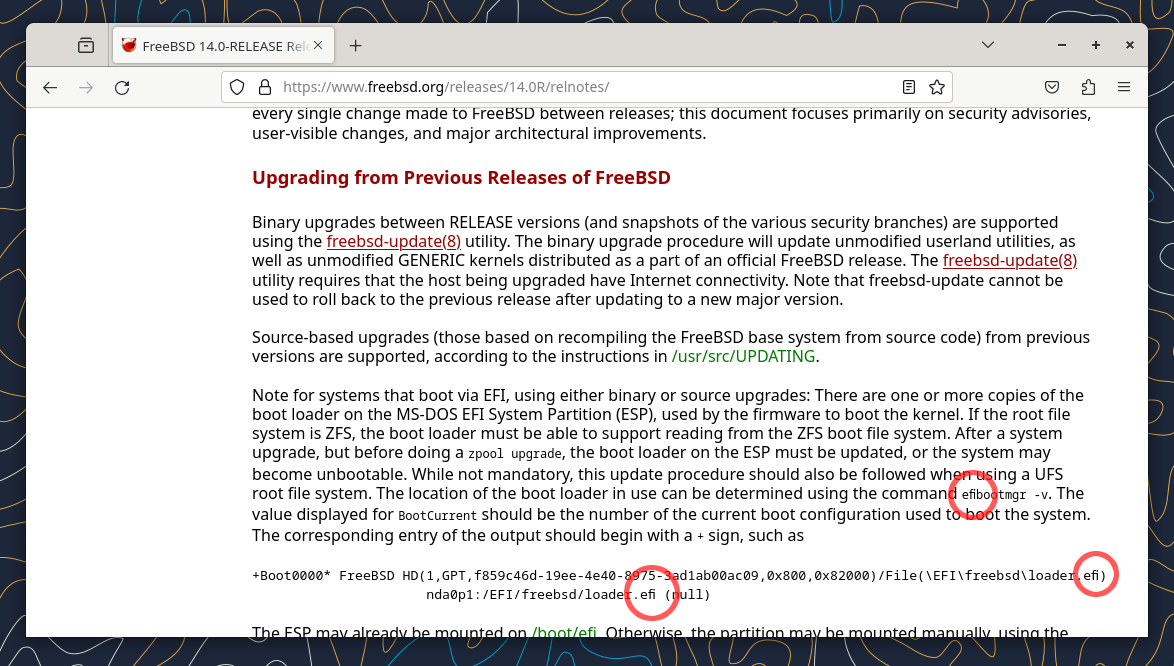
Ligatures in monospaced fonts in Firefox
I'm using FreeBSD 14 with firefox-120.0_1,2 and the noto-2.0 meta package installed.
When browsing websites that contain monospaced passages (such as code examples), I encounter the problem that certain character sequences are replaced with ligatures (see attached image).
Of course, this is undesirable because it messes up alignment and columns (apart from being ugly).
Can other people reproduce this problem, and do you know which mechanism or which software component causes this? What can I do to stop it?
I'm still interested in the underlying issue though. What exactly is causing this problem? Isn't that a bug of some sort? Why would anyone want automatic ligatures in monospaced fonts? (I would even argue that automatic ligatures in general can be problematic, as they are language dependent, e.g. in German, see German Wikipedia on ligatures.)
My guess is it's a glitch in the "Noto Sans Mono" font, it doesn't seem to have the spacing=100 property used to mark monospace fonts:
So it might make sense auto-rendering of ligatures is enabled unless explicitly disabled. Well, just a theory.
To clarify that it's not monospaced fonts in general, and not specific to Firefox.
I still don't understand what exactly is the problem, or rather: where is the problem. According to sirias, it's a problem of the "Noto Sans Mono" font:
My guess is it's a glitch in the "Noto Sans Mono" font, it doesn't seem to have the spacing=100 property used to mark monospace fonts: […]
But if it's a problem of "Noto Sans Mono" font, how is this related to non-monospaced fonts? I don't understand.
Is the problem on the console the same problem?
It's mysterious :)
But if it's a problem of "Noto Sans Mono" font, how is this related to non-monospaced fonts? I don't understand.
Huh? My assumption is that "Noto Sans Mono" is treated as if it was non-monospaced, because it doesn't have the spacing property used to mark monospace fonts. This assumes no renderer would ever automatically apply ligatures for monospaced fonts.
Is the problem on the console the same problem?
What problem on the console?
I meant one of the other linked threads. I think it actually were problems in the terminal, not the console.
My point is, I'm not really sure which component caused the issue in my case, and whether it only applies to the Noto monospaced fonts, or whether it's Firefox related or not.
I guess it's not a Firefox issue, but I don't really understand it yet. I only encountered the issue in Firefox so far.
which component caused the issue
it's the noto mono font. Whoever uses it as is gets wrong visuals. However, once you convince the consumers that it's a monospace font (by setting the appropriate flag in either the font file or via the additional meta data) the rendering is as should be.
The package maintainers may add a patch (to the package) and/or report upstream to wherever the noto mono font without the monospace flag comes from. They should know.
I'm still interested in the underlying issue though. What exactly is causing this problem? Isn't that a bug of some sort? Why would anyone want automatic ligatures in monospaced fonts? (I would even argue that automatic ligatures in general can be problematic, as they are language dependent, e.g. in German, see German Wikipedia on ligatures.)
There is no problem.
I first found the "spacemono" font can do this, so I chose to download that font for certain applications, e.g. my firewall configurator. If you happen to have an interface name with 'fl', well, have fun. :)
Apparently, now others had the same idea.
The idea was to break alignment and routine: as more and more people nowadays act like robots, to give them something unexpected to wake them up.